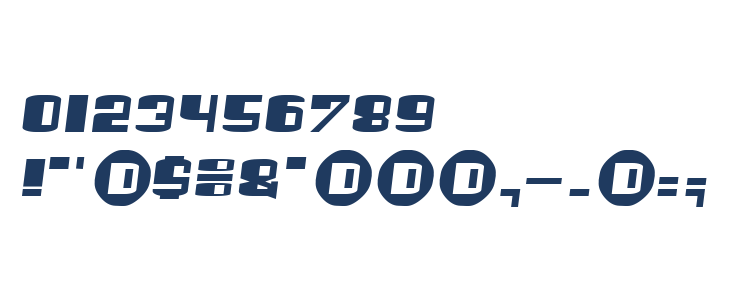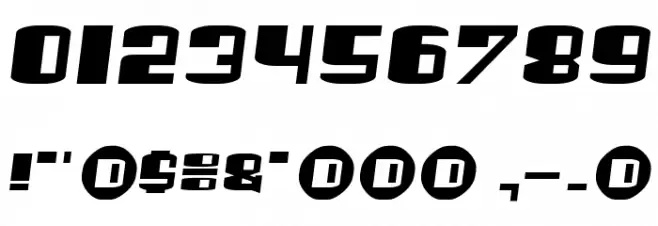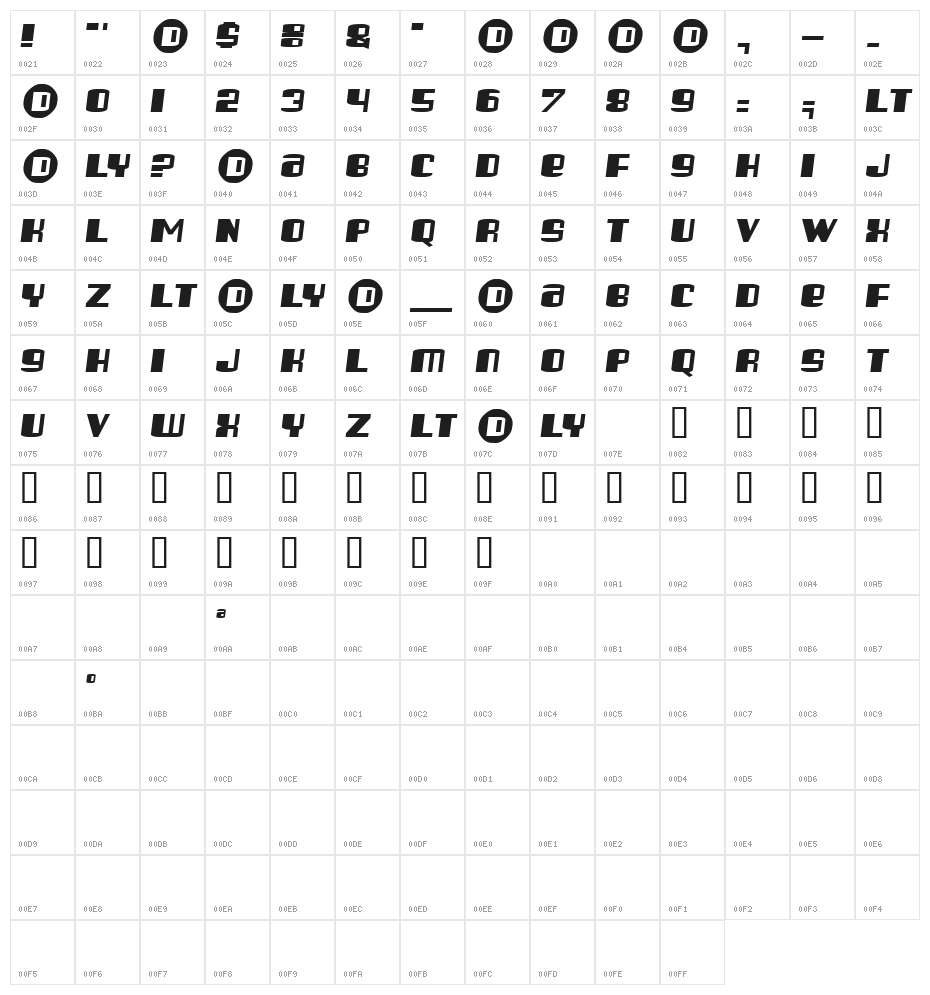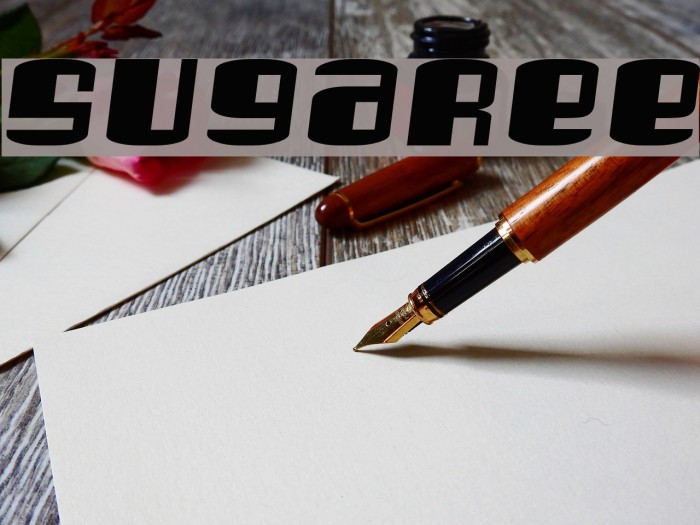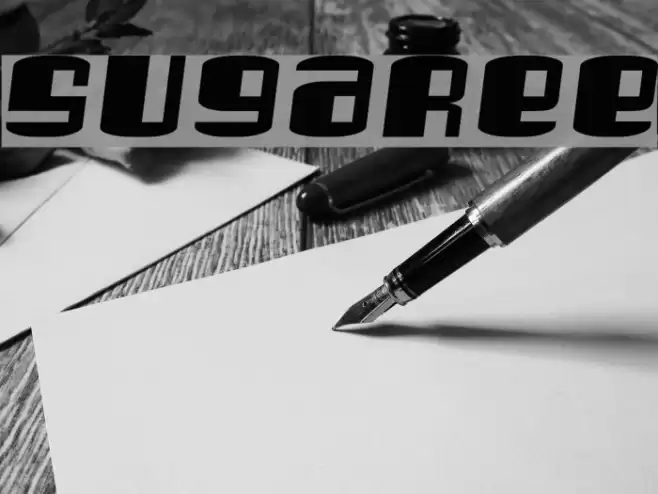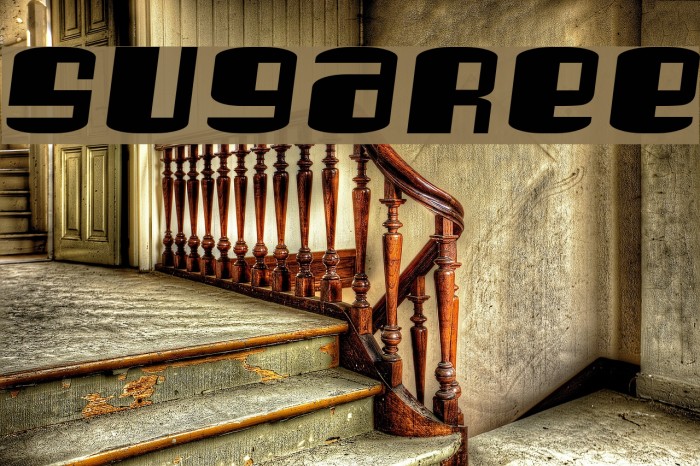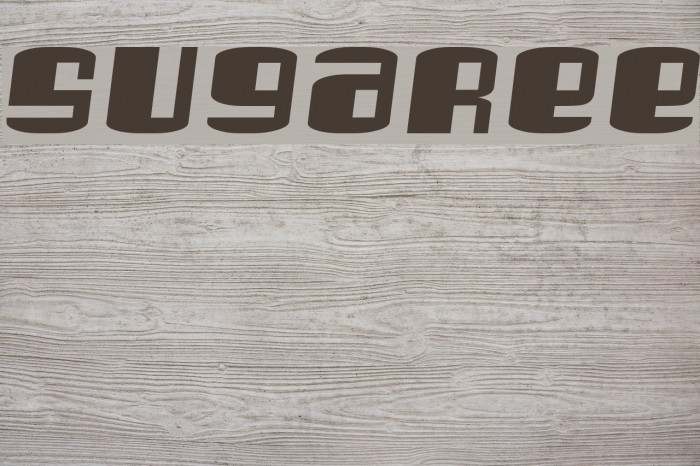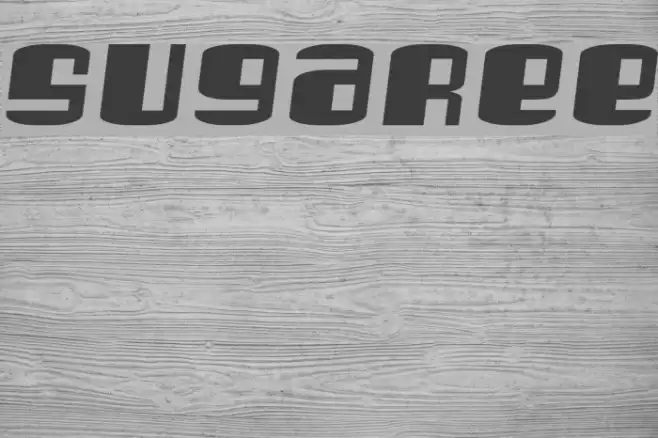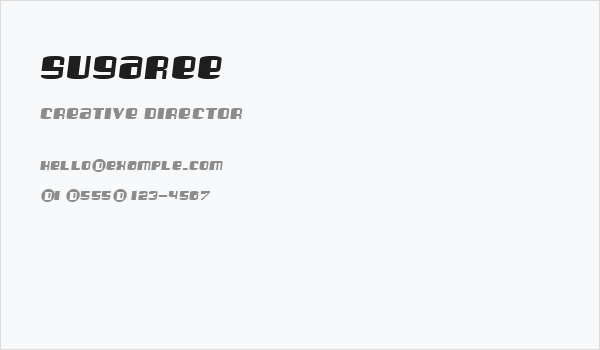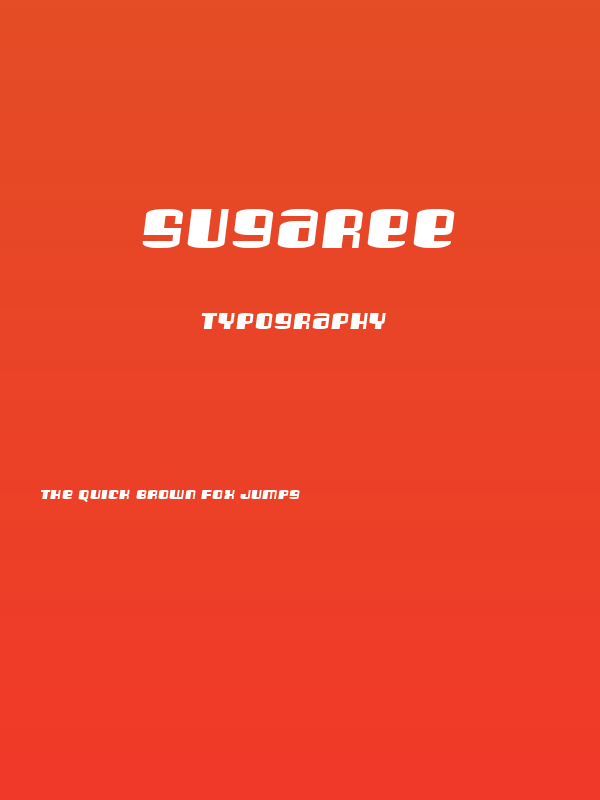
Sugaree Font
Sugaree Description
This font features a bold and dynamic style with a futuristic and sporty appearance. The characters are slightly italicized, giving a sense of motion and speed. The strokes are thick and consistent, providing a strong visual impact. The design includes unique angular cuts and curves, particularly noticeable in letters like 'A', 'R', and 'S', which add to its modern and edgy feel. The numbers and special characters maintain the same boldness and style, ensuring uniformity across all elements.
| Proposed Projects | Ideal for sports branding, automotive designs, video game titles, and dynamic posters. |